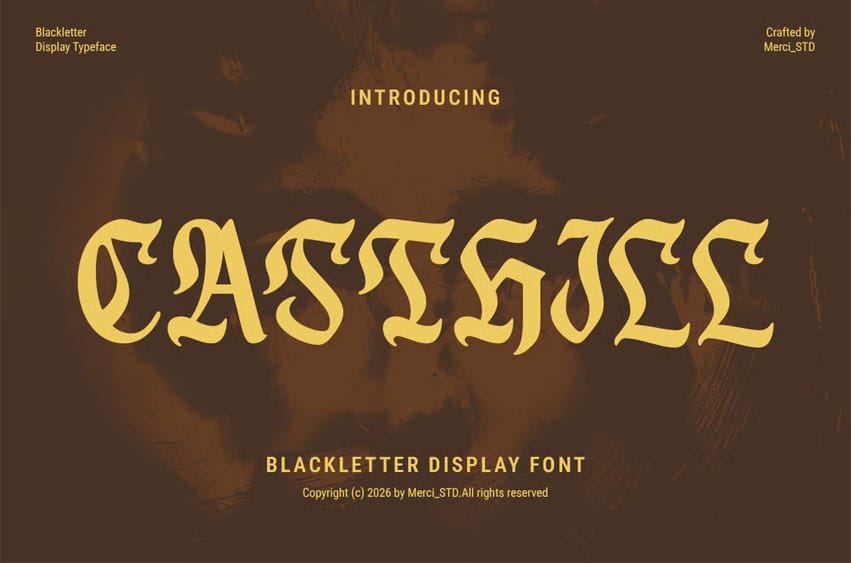
Casthill Font is a bold blackletter display font inspired by medieval calligraphy.
- Uppercase Letters
- Ligature & Alternate Character
- Unique Hand-Drawn Style